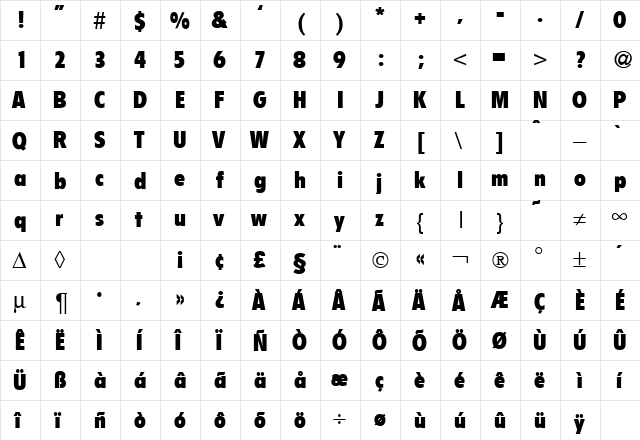
FlipperCond Bold
Design Context for FlipperCond Typeface
FlipperCond takes a measured approach to typography — its balanced proportions and neutral character make it a reliable workhorse for both digital and print work. Its bold stroke weight gives it real presence on the page. Its narrow stance lets it pack a punch even in space-constrained designs.